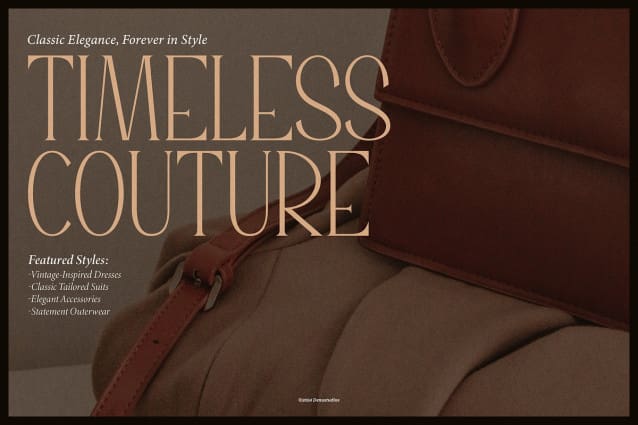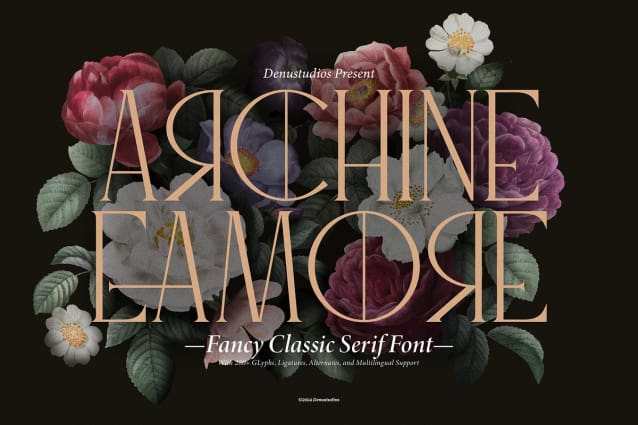
Archine Eamore Font
Archine Eamore Font | Fancy Classic Serif, from Denustudios, suitable for any projects such as: logos, branding projects, homeware designs, product packaging, mugs, quotes, posters, shopping bags, t-shirts, book covers, name card, invitation cards, greeting cards, label, photography, watermark, special events, and all your other lovely projects that need a Fancy Classic Serif taste.